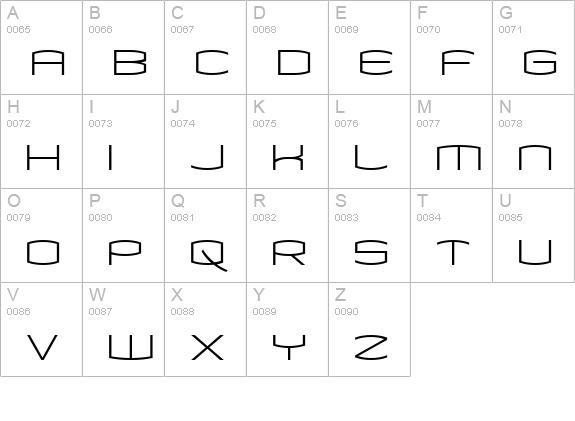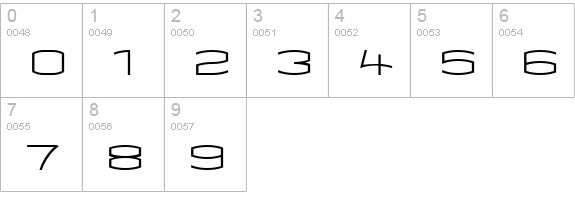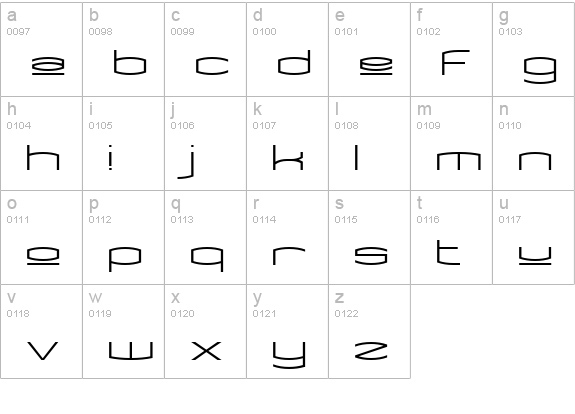
Kameleon Upper Font Details
Kameleon Upper font is a stylish and versatile typeface that exudes modernity and sophistication. With its sleek uppercase letters and unique design elements, this font is perfect for a wide range of design projects, from branding to editorial design. What sets Kameleon Upper font apart is its ability to adapt to various styles and themes, making it a go-to choice for designers looking to add a touch of elegance to their work. Whether you're creating a logo, poster, or website, this font will elevate your design and make a lasting impression. Best of all, Kameleon Upper font is available for free download at FontsMarket.com. Simply visit the website to access this stunning font and take your designs to the next level. Don't miss out on the opportunity to enhance your projects with Kameleon Upper font today!